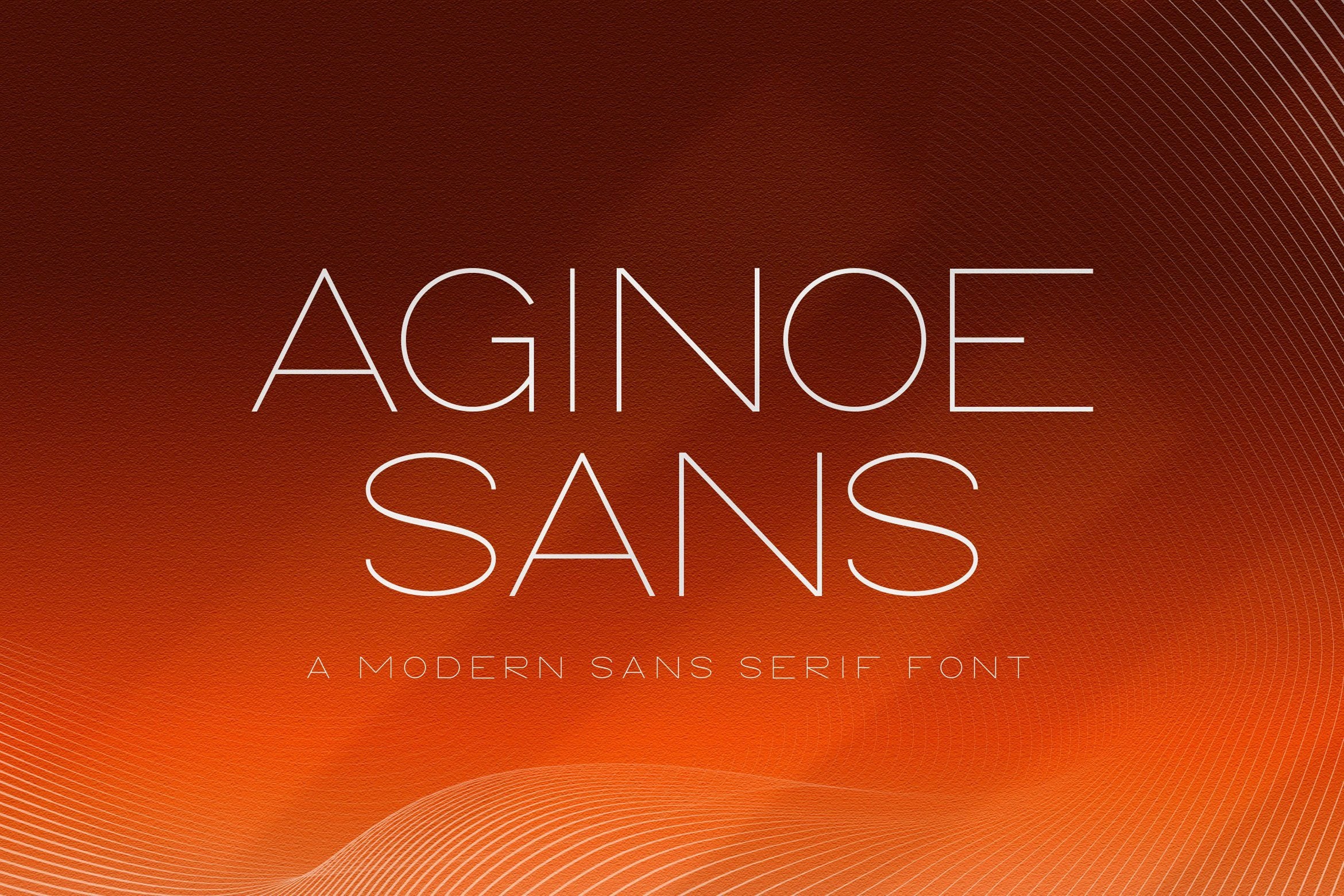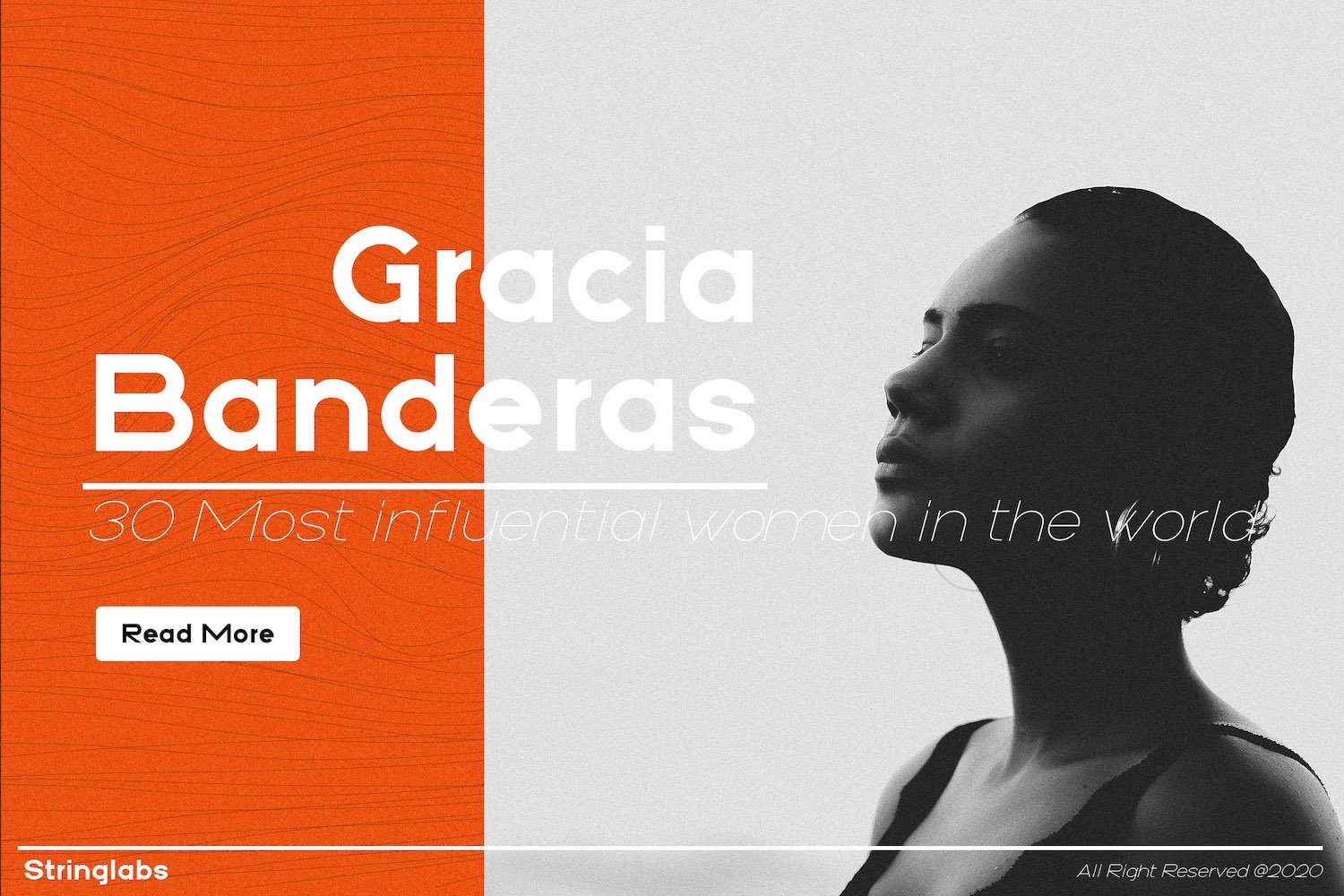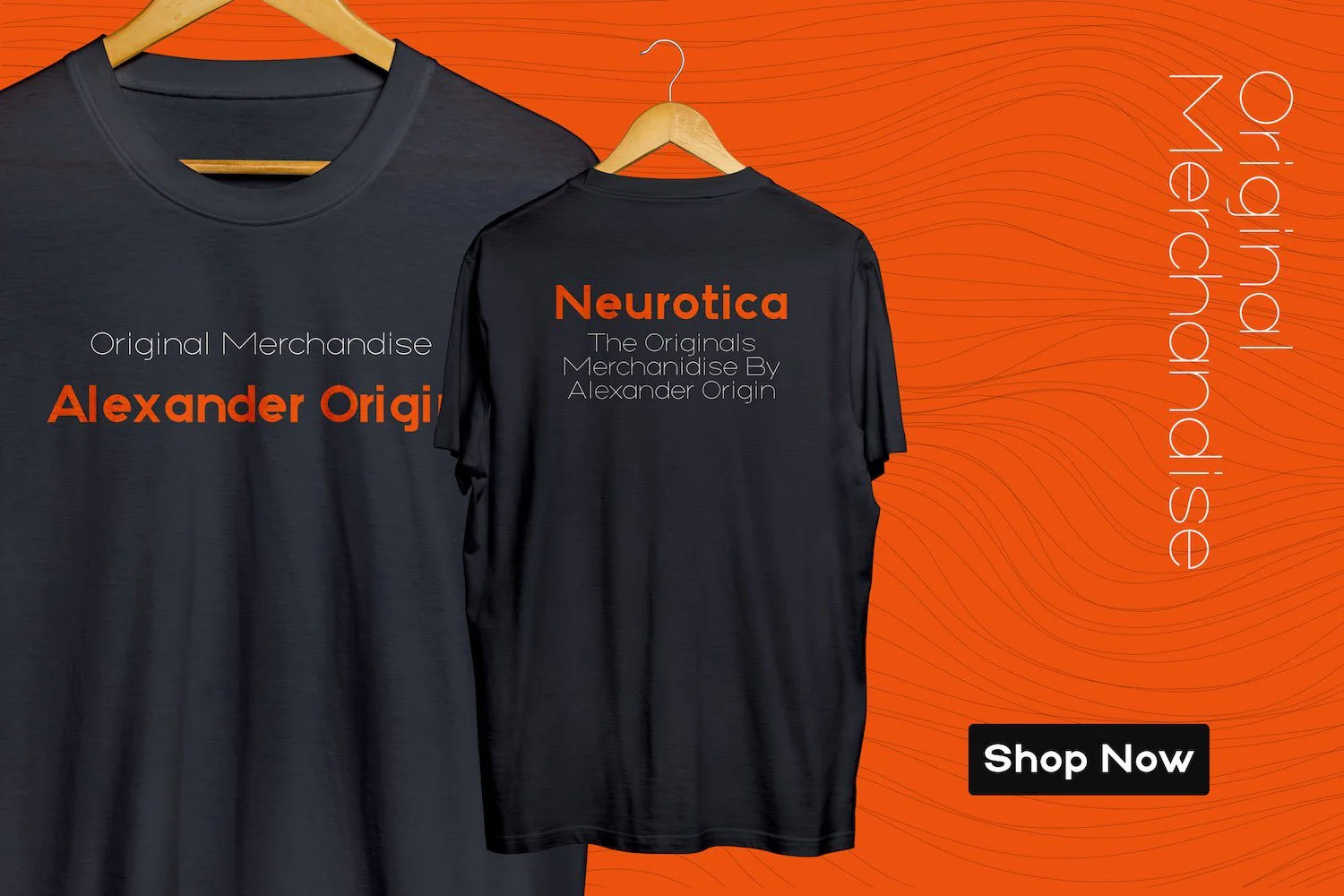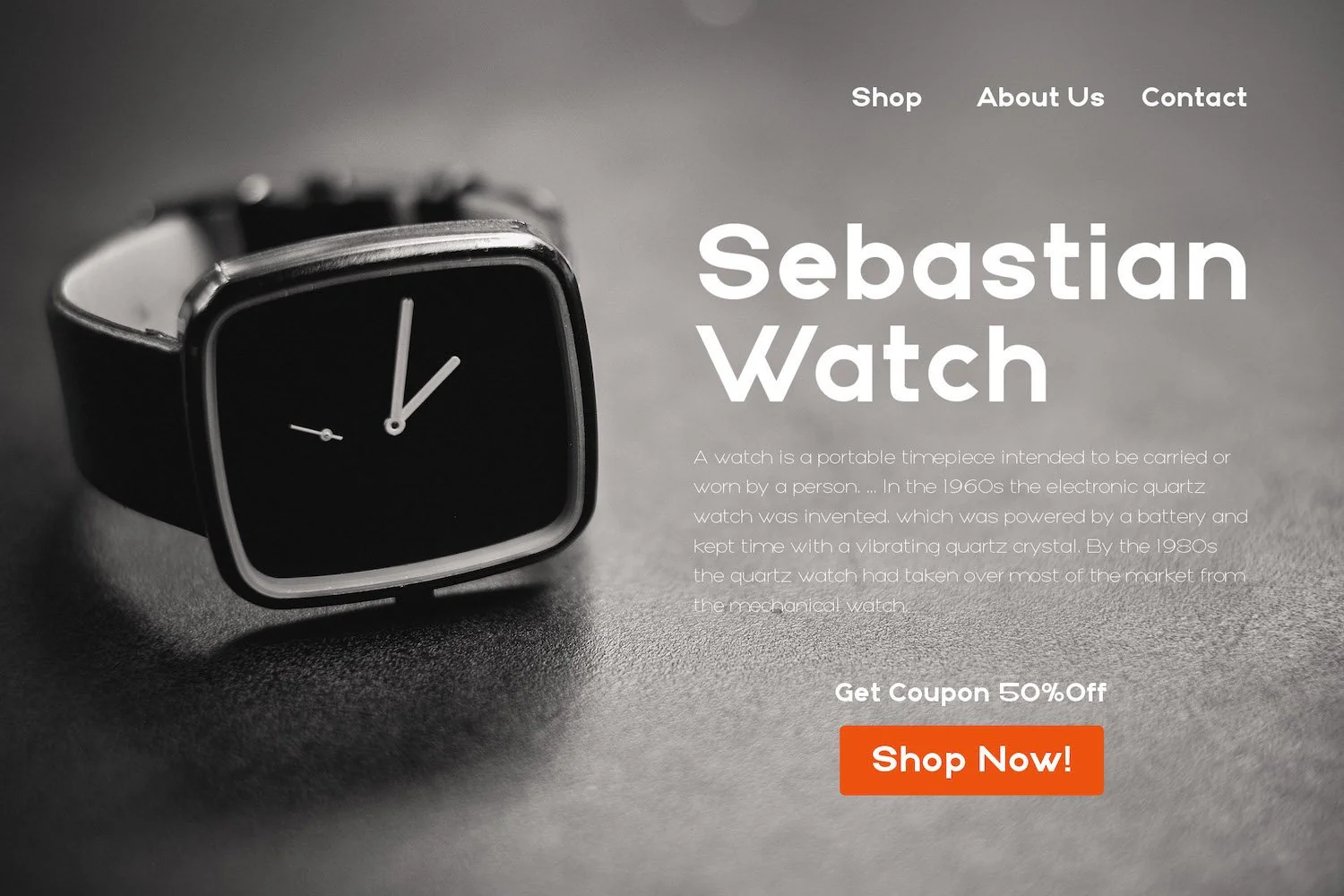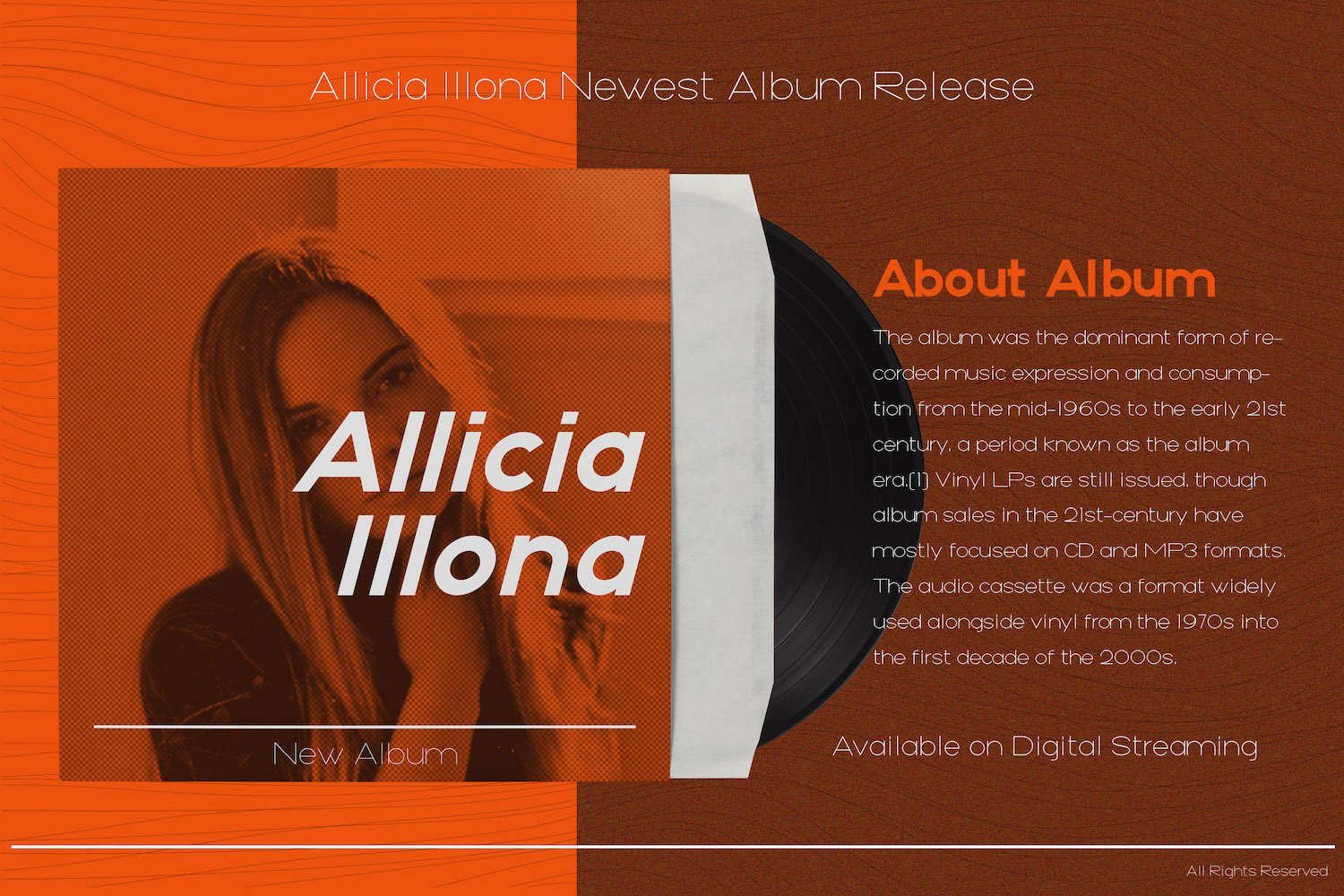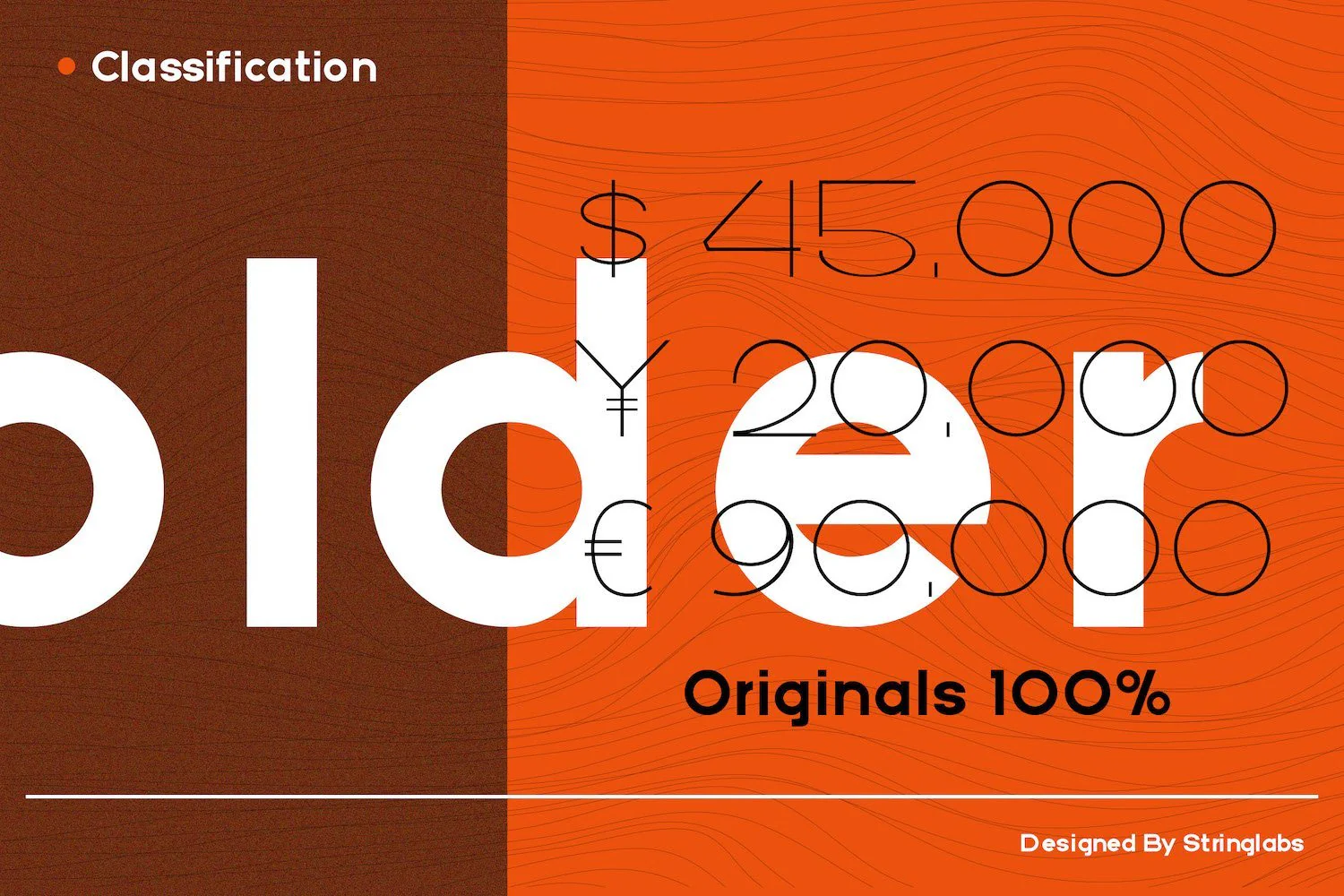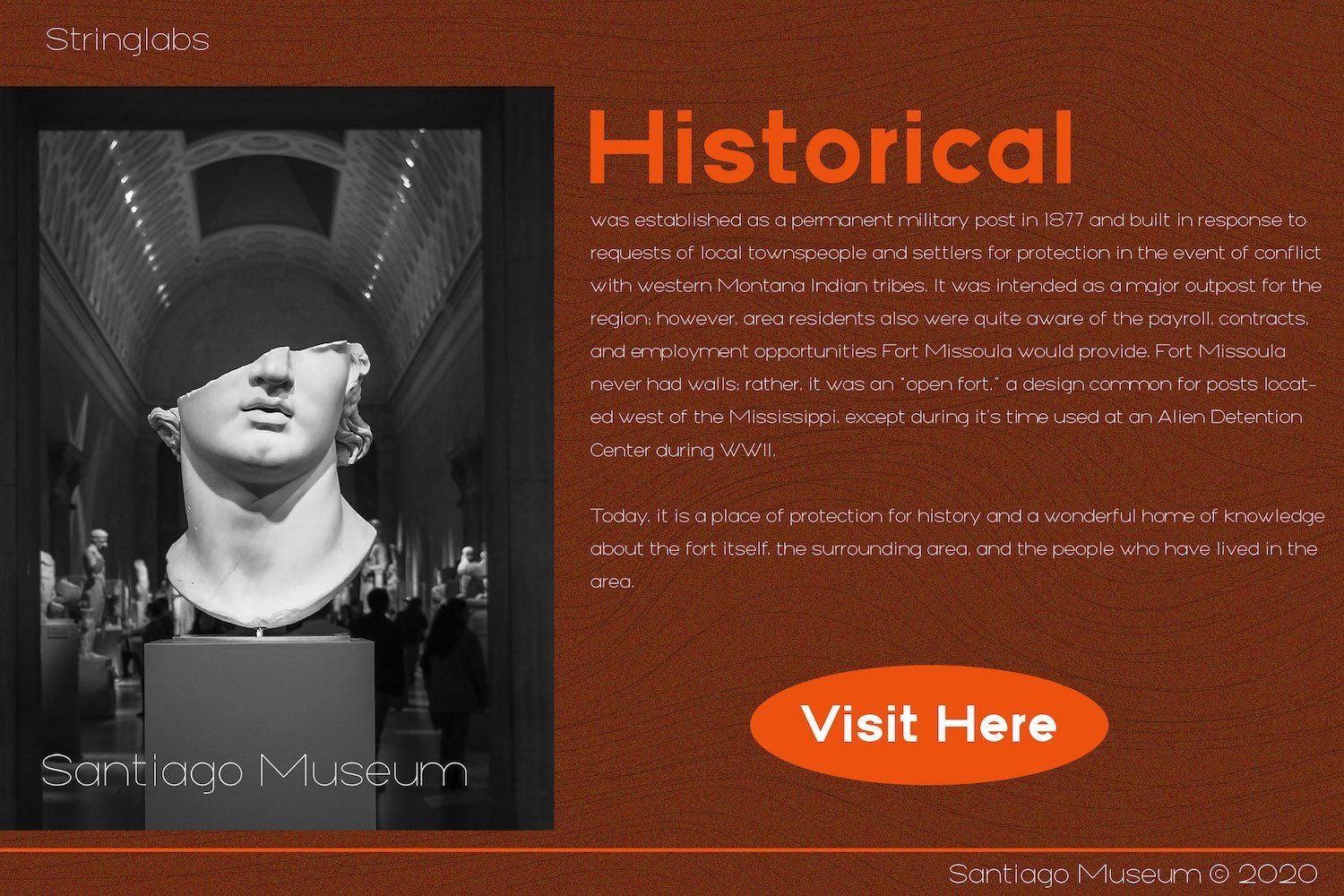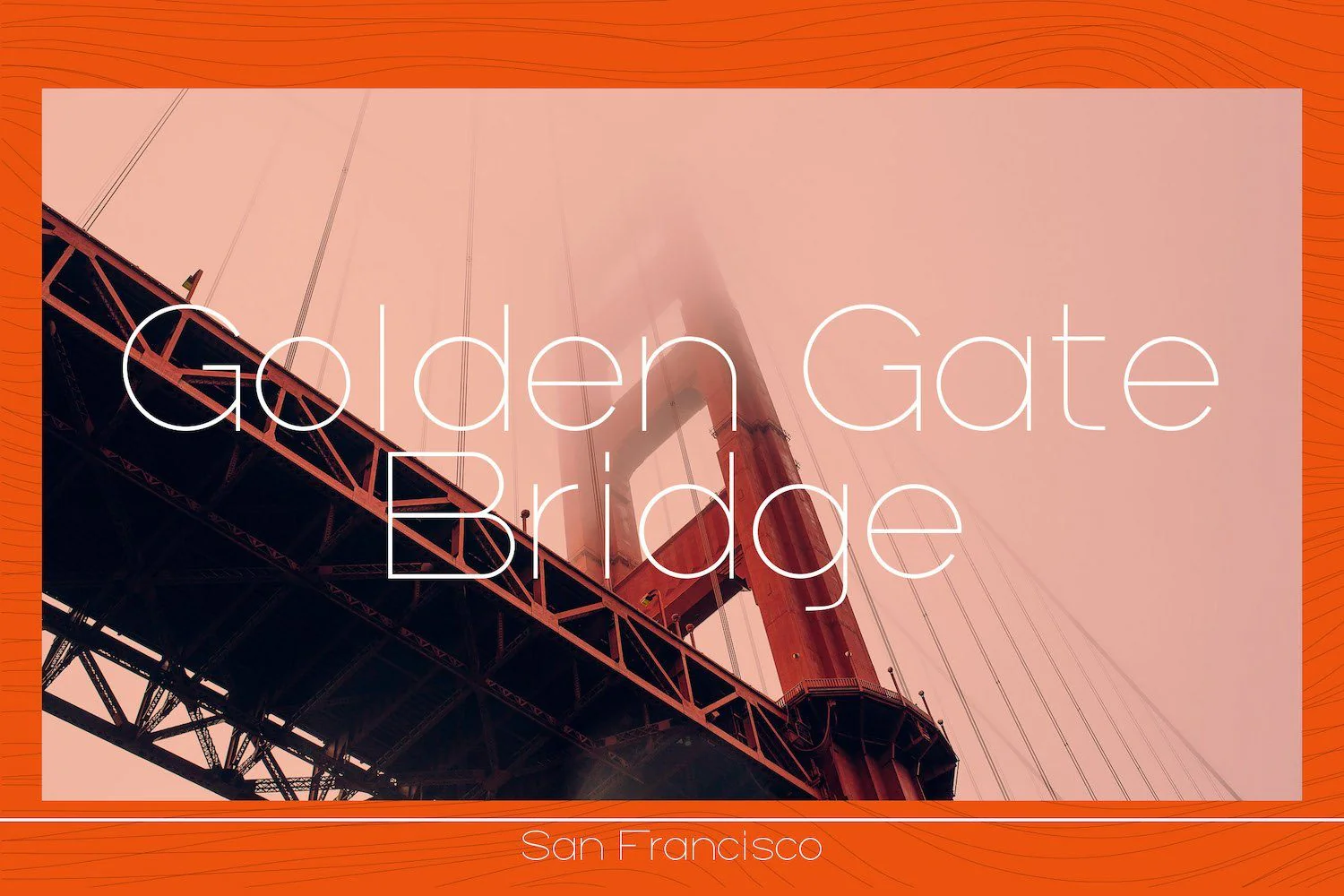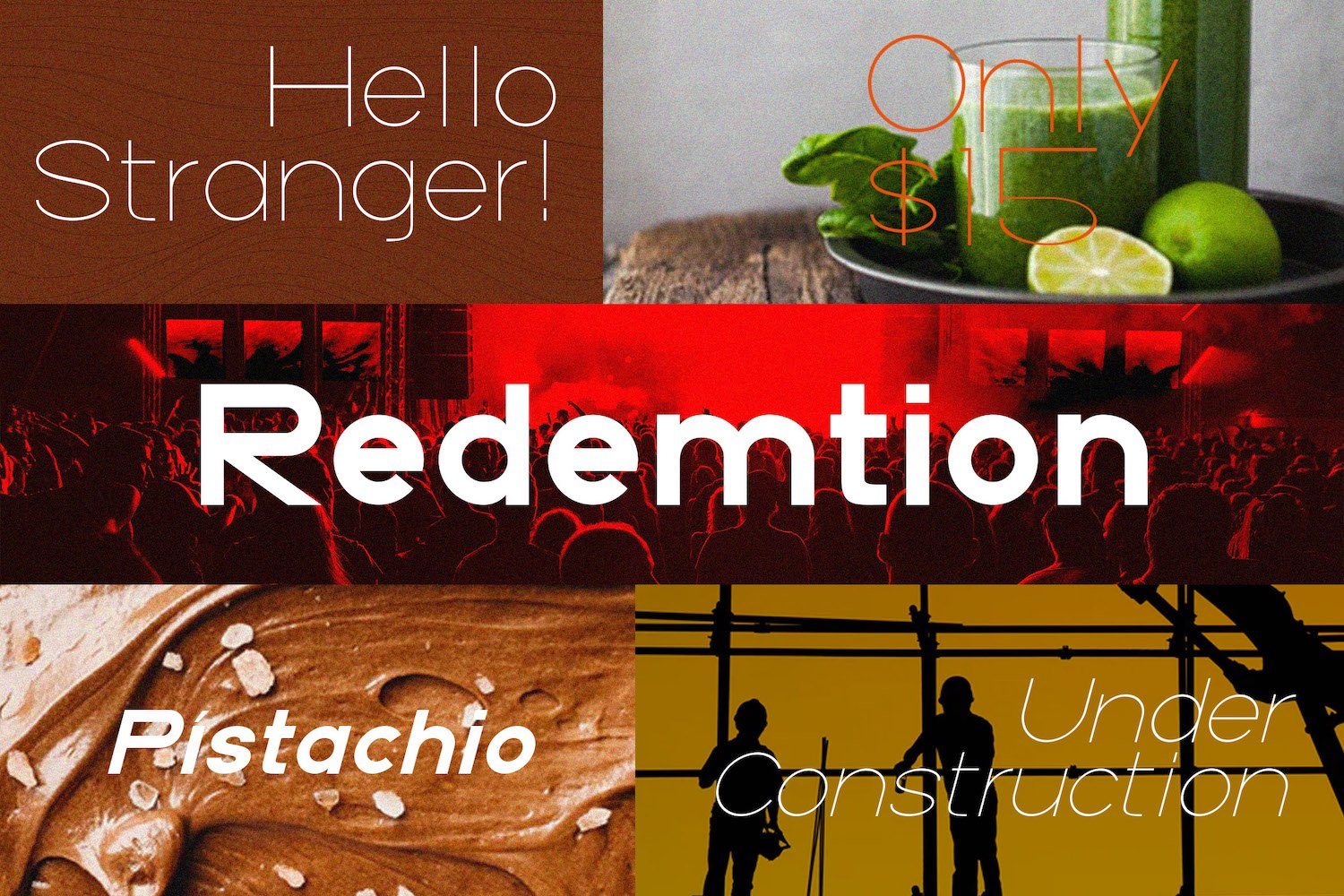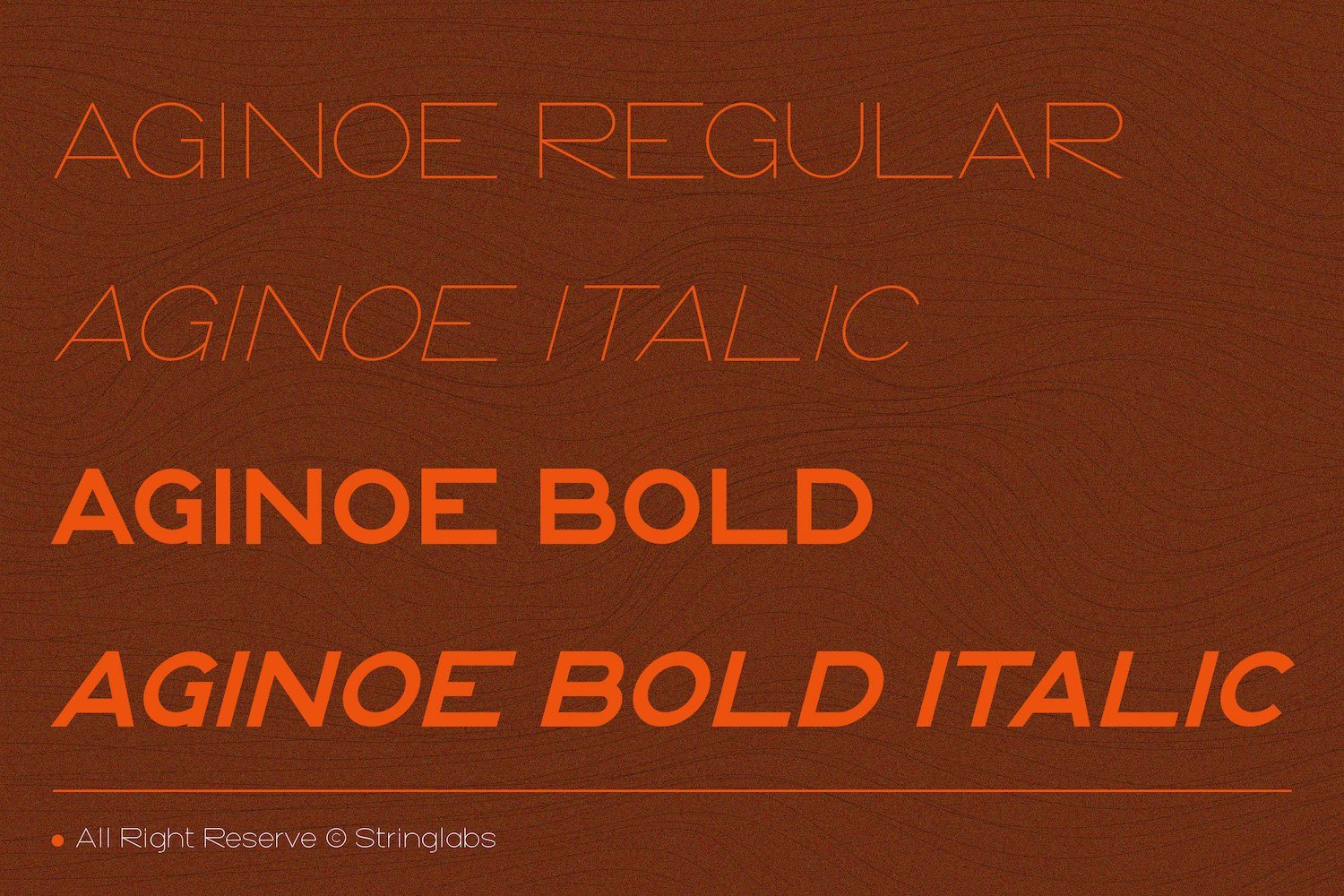
Aginoe - Modern Sans Serif Font
Introducing Aginoe - Modern Sans Serif Font
Aginoe Sans is a simple and thin lettered sans serif font, that combines perfect readability with a clean and modernist lettering design. The font is also available in a regular, italic, bold italic and bold version.
- Regular
- Italic
- Bold
- Bold Italic